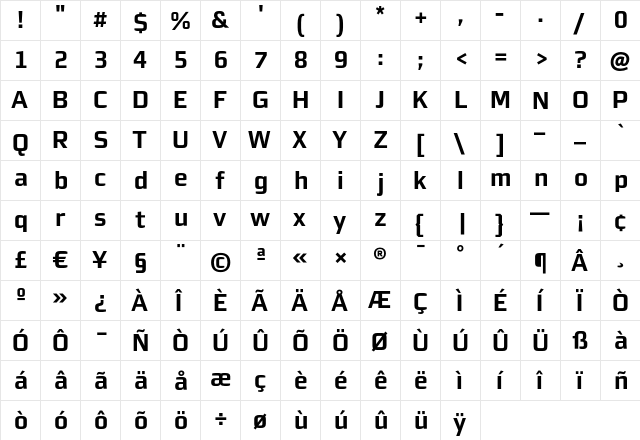
MorganSnLining Bold
Design Context for MorganSnLining Typeface
MorganSnLining offers clean, dependable letterforms without strong stylistic allegiance, making it a practical choice for designers who need flexibility. Its bold stroke weight gives it real presence on the page.